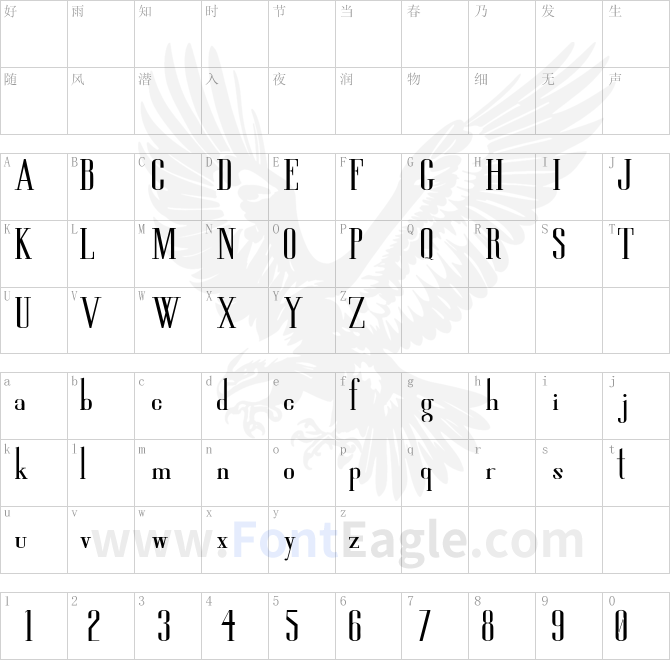
High-So-Serious is a great font, widely used in graphic design, single-page menu design, poster design and other fields, and is deeply loved by designers.High-So-Serious download.